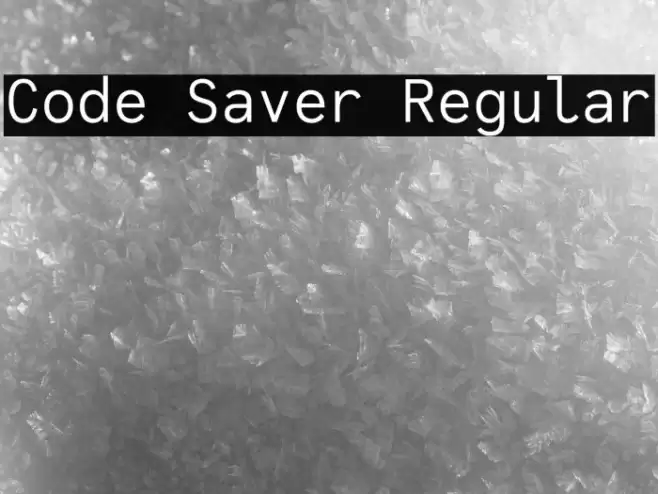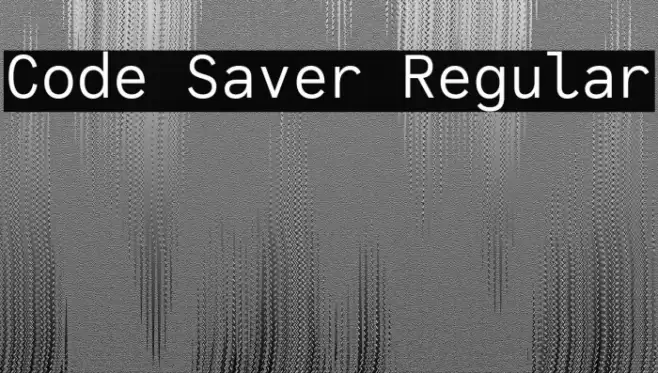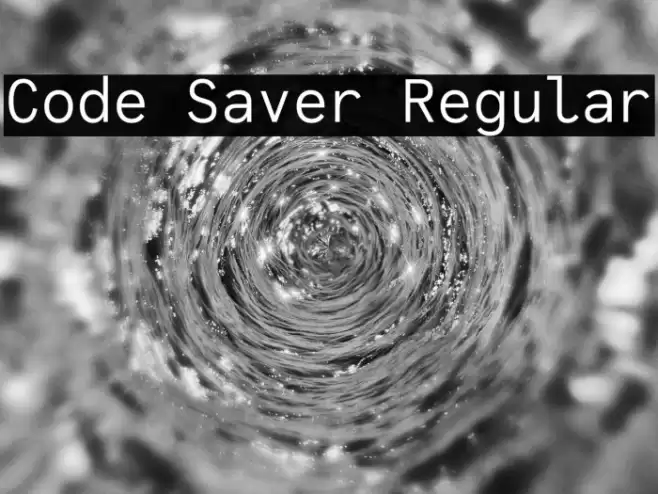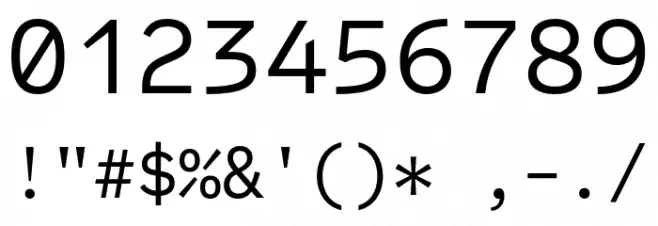
Code Saver Regular Font
Code Saver Regular Description
This font features a clean and modern sans-serif design, characterized by its geometric shapes and uniform stroke widths. The uppercase letters are bold and straightforward, while the lowercase letters maintain a consistent style with slightly rounded edges, enhancing readability. Numbers are clear and distinct, making them ideal for data presentation. The special characters are well-defined, ensuring versatility in various contexts. Overall, this font exudes a sense of clarity and professionalism, suitable for both digital and print media.
A clean, modern sans-serif font with geometric shapes and uniform strokes from Basic fonts.
- Proposed Projects: Ideal for coding interfaces, technical documents, websites, and modern branding.